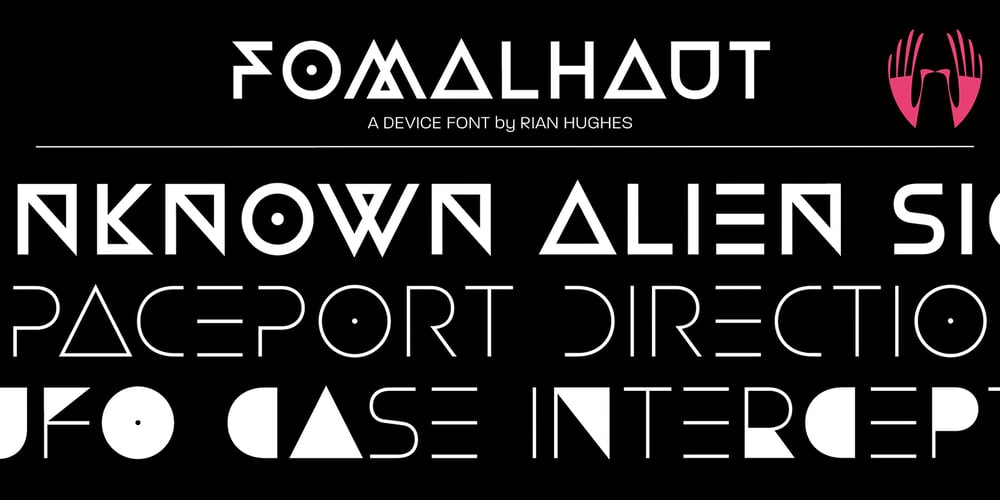
Fomalhaut Font Family was designed by Rian Hughes and published by Device. Fomalhaut contains 4 styles and family package options. A modern, geometric sans serif display font with a hint of the future and the alien. The familiar letter-shapes are reimagined, with key stokes being placed in unusual positions without impacting the readability. The ‘Solid’ variants have certain counters filled in, creating a bold and unusual rhythm that is very effective in shorter settings. The different versions can be mixed for effect, while letterspacing adds a sharp, clean sophistication.